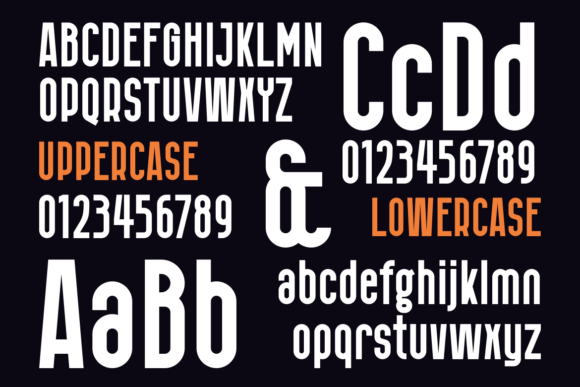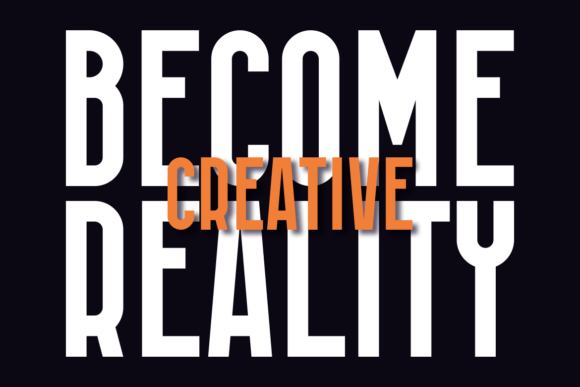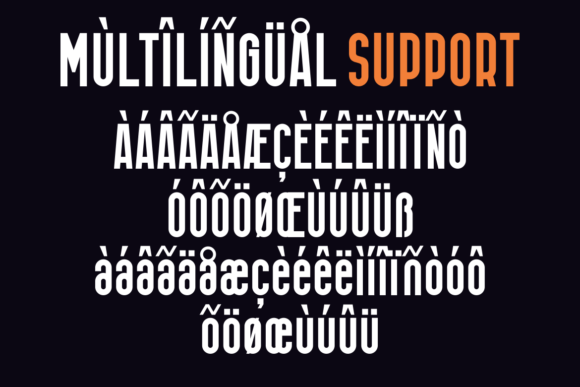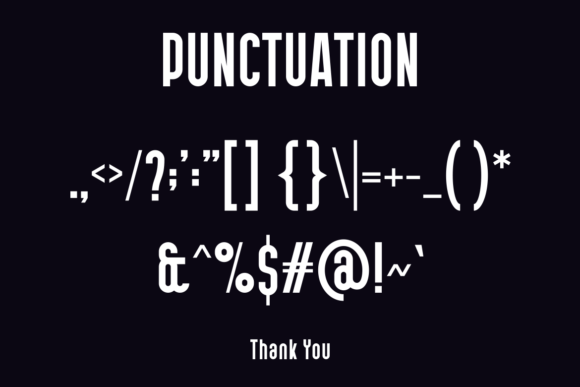
Introduction to Hursy Font
Introducing our new product **HURSY – Condensed Font** **HURSY – Condensed Font** – Modern Font is a bold and authentic display font.
The font is suitable for any branding project like logo, template design, esport, and many more outstanding in a wide range of contexts.
Key Features of Hursy Font
Why Choose Hursy Font?
Hursy Font offers exceptional quality and versatility, making it a valuable addition to your design toolkit. Whether you’re creating for personal projects or commercial use, Hursy Font delivers professional results.